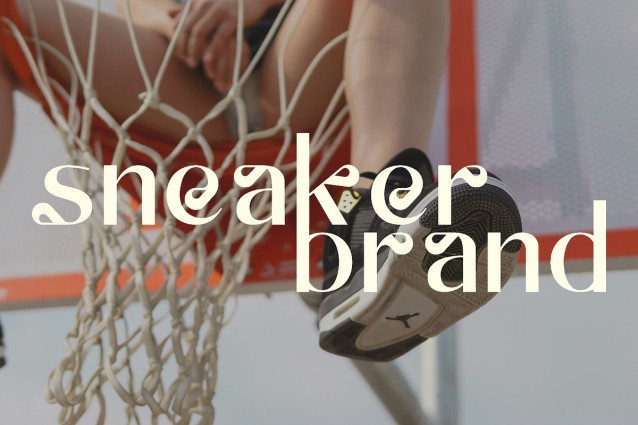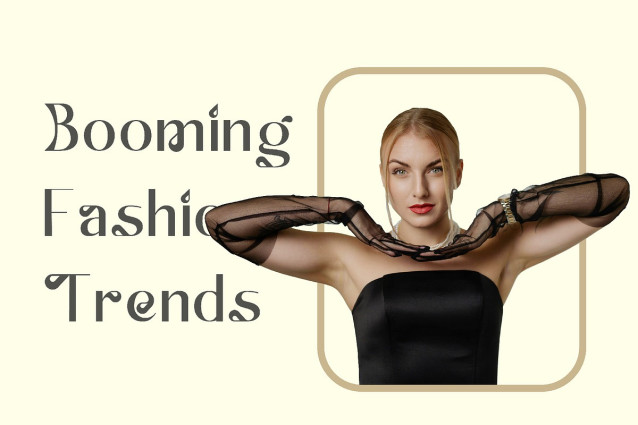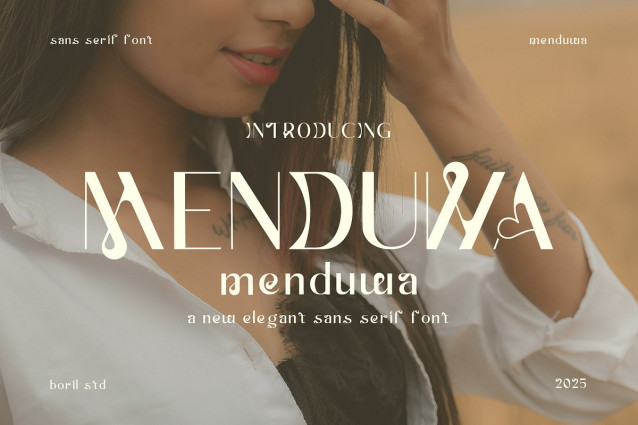
Menduwa Font
Menduwa font: exhibits experimental characteristics with a unique combination of geometric and decorative styles. The basic letters look modern and minimalist, but are embellished with decorative elements such as curves, loops, and curved accents at specific points.